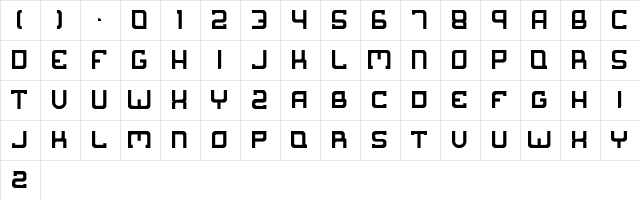
Suborban Regular
Suborban takes a measured approach to typography — its balanced proportions and neutral character make it a reliable workhorse for both digital and print work.